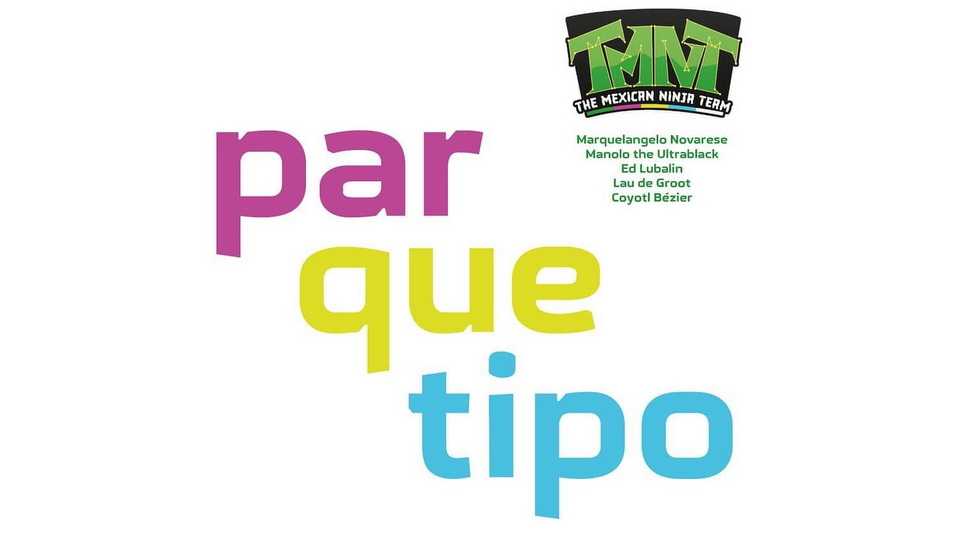
Download Parquetipo font, a sans serif typeface designed for wayfinding within public parks. Parquetipo has been designed based on specific formal aspects: modular construction, geometric stroke, bold weight, high contrast.